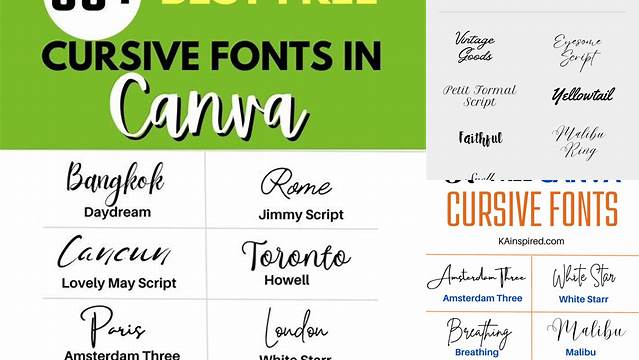
Cursive Fonts In Canva: Free Guide
Hey everyone! Ever wanted to add a touch of elegance and personality to your designs? Well, look no further because we're diving headfirst into the amazing world of cursive fonts in Canva – and the best part? It's totally FREE! Whether you're a seasoned designer or just starting out, knowing how to use cursive fonts can seriously level up your projects. In this article, we'll explore everything from finding those perfect swooshy fonts to actually using them in your designs, and even some tips on how to make your text pop. Get ready to transform your projects with the beauty of cursive!
What Makes Cursive Fonts So Special in Canva?
Alright, let's be honest, cursive fonts are just plain cool. They bring a unique blend of sophistication, style, and a personal touch to any design. Think about it – a simple wedding invitation, a stunning logo, or even a heartfelt social media post can be instantly elevated with the right cursive font. That handwritten feel adds a human element that's often missing in the digital world. Using cursive fonts in Canva opens up a whole new world of creative possibilities for you. It's about more than just pretty lettering; it's about creating a feeling, setting a mood, and making your audience connect with your message on a deeper level. It's like giving your design a signature. These fonts have an innate ability to draw the eye, making your text stand out in a sea of regular fonts. But cursive fonts in Canva offer more than just visual appeal; they also add a touch of sophistication that can be hard to achieve with other font types. They're perfect for adding a sense of formality to your design or for creating a more relaxed and friendly vibe, depending on the style you choose. The versatility of cursive fonts allows you to tailor your design to your specific audience and the message you want to convey. The key lies in selecting the right font for the occasion, and with Canva's vast collection, you're sure to find the perfect match.
When you're working with cursive fonts in Canva, you have a plethora of options. You can choose from elegant script fonts, playful handwriting fonts, or even bold and modern interpretations. There's a cursive font for every mood and purpose, from crafting invitations with a classic charm to creating eye-catching social media graphics. The beauty of using cursive fonts in Canva is that you can easily integrate them into your designs without any technical expertise. Canva's user-friendly interface allows you to experiment with different fonts, sizes, and colors until you find the perfect combination. And remember, it's completely free!
Where to Find Those Amazing Free Cursive Fonts in Canva
Okay, let's get down to the good stuff – finding those gorgeous cursive fonts in Canva that won't cost you a penny. Canva makes it super easy. First, head over to the text tool within your project. You can usually find it on the left-hand side toolbar. Once you've added a text box to your design, click on the font selection dropdown menu (it usually shows the default font). Here's where the magic happens! Start typing 'cursive', 'script', or 'handwritten' in the search bar. Canva will filter the fonts and show you a bunch of options that fit your search. Make sure you keep an eye out for the fonts that don't have a little crown icon next to them. Those are the free ones! The ones with the crown are for Canva Pro users, but trust me, there are plenty of stunning free cursive fonts in Canva to get you started.
Another neat trick is to simply scroll through the font list. Canva often categorizes fonts, making it easier to spot the cursive fonts. You'll find a variety of styles, from delicate and elegant to bold and playful. Don't be afraid to play around and experiment with different fonts to see what works best for your design. Try combining different cursive fonts with other font types to create contrast and visual interest. The key is to find a font that complements your overall design aesthetic and enhances your message. Plus, remember, while some fonts may seem similar, each one has its own unique personality. Some might be ideal for wedding invitations, while others are better suited for creating trendy social media graphics. Experimenting will let you know what looks best for you!
Also, make sure to check the font's character set before you commit. Some cursive fonts in Canva may have limited characters, especially for free fonts. If you need to use special characters or symbols, make sure your chosen font supports them. This is particularly important if you're designing in a language that uses accented characters or special symbols. The goal is to select a cursive font that not only looks beautiful but also meets your functional needs.
Mastering the Art of Using Cursive Fonts in Canva
Now that you've found some awesome free cursive fonts in Canva, let's talk about how to use them like a pro. Firstly, size matters! Cursive fonts can sometimes be harder to read than other font styles, especially at smaller sizes. Make sure your text is large enough to be easily legible. Avoid using cursive fonts for large blocks of text; they're generally best suited for headlines, titles, or short phrases. The goal is to create visual interest, not to frustrate your audience. Think of cursive fonts as accents, not the main course. Secondly, think about spacing and kerning. Kerning refers to the spacing between individual letters. Sometimes, when you use cursive fonts in Canva, the letters might appear too close together or too far apart. Canva allows you to adjust the kerning to make your text look more balanced and visually appealing. A little bit of tweaking can go a long way in making your cursive font look its best.
Color is your next best friend. The color of your cursive font can drastically change the impact of your design. Consider using a contrasting color to make your cursive text pop against the background. Or, to create a more elegant feel, try using a metallic or pastel shade. Remember, the right color can highlight the style of your design. Thirdly, don't be afraid to experiment with effects! Canva offers various text effects, such as shadows, outlines, and curves, that can enhance the look of your cursive fonts in Canva. A subtle shadow can add depth, while an outline can make your text stand out. You can also curve your text to create a more dynamic and visually interesting design. Playing around with effects allows you to add your unique touch. Fourth, less is often more. Cursive fonts can be visually overwhelming, so don't overdo it. Use cursive fonts sparingly and strategically. Consider using them in combination with other fonts to create a balance between style and readability. The key is to create a design that's both visually appealing and easy to understand.
Combining cursive fonts with other fonts is also a powerful technique. Pairing a cursive font with a clean, sans-serif font can create a beautiful contrast. The contrast between the elegant cursive and the modern sans-serif can create a well-balanced design. When selecting a font pairing, make sure the fonts complement each other without competing for attention. The balance will make your design look more professional and polished. If you are working on a wedding invitation, for example, you may use a cursive font in Canva for the names and a simple, easy-to-read font for the body text. In the end, your design should feel effortless and look stunning.
Common Mistakes to Avoid When Using Cursive Fonts in Canva
Alright, let's talk about some common pitfalls to avoid when using cursive fonts in Canva. Firstly, overusing them. As we mentioned before, cursive fonts are fantastic for adding flair, but they can be a disaster if used everywhere. Avoid using cursive for body text or large chunks of copy. It can be tiring to read, and your audience might lose interest quickly. Keep it to headlines, titles, or short phrases where they can truly shine. Secondly, poor readability. Make sure your cursive font is easy to read. Some fonts are just too stylized or intricate to be easily understood. Always choose a font that's clear and legible, especially at the size you're using. Test it out! Check how it looks at different sizes and on different backgrounds before you commit. Make sure that it looks great on all platforms!
Another important point is poor kerning and spacing. Pay attention to the spacing between letters. Some cursive fonts in Canva might require some manual adjustments to make the spacing look just right. If letters are overlapping or too far apart, it can make your text look messy and unprofessional. Canva allows you to adjust the kerning and line spacing, so take advantage of this feature. Thirdly, ignoring the background. Cursive fonts can get lost against a busy background. Make sure your text contrasts well with the background. If the background is already intricate, consider using a simpler cursive font or adding a background element to help your text stand out. Make sure the background supports the design.
Also, avoid using too many different fonts in one design. While variety can be good, using too many different fonts can make your design look cluttered and unprofessional. Stick to a few font combinations and maintain consistency throughout your design. Consistency helps to create a cohesive and professional look. Lastly, and this is a big one, don't settle for the first font you find! Canva offers a wide variety of cursive fonts in Canva, so take your time and explore your options. Try out different fonts and see which ones best suit your design and the message you want to convey. Experiment, and don't be afraid to try new things. Remember, the goal is to create a design that looks good and reflects your personal style.
Conclusion: Your Journey with Cursive Fonts in Canva Starts Now!
So there you have it, folks! A complete guide to the wonderful world of cursive fonts in Canva, completely free and ready for you to use. From finding the perfect font to mastering the art of using them, you're now equipped to add a touch of elegance and personality to your designs. Remember to experiment, have fun, and don't be afraid to get creative. Now go forth and create some stunning designs! With a little practice, you'll be a cursive font in Canva expert in no time. Happy designing!